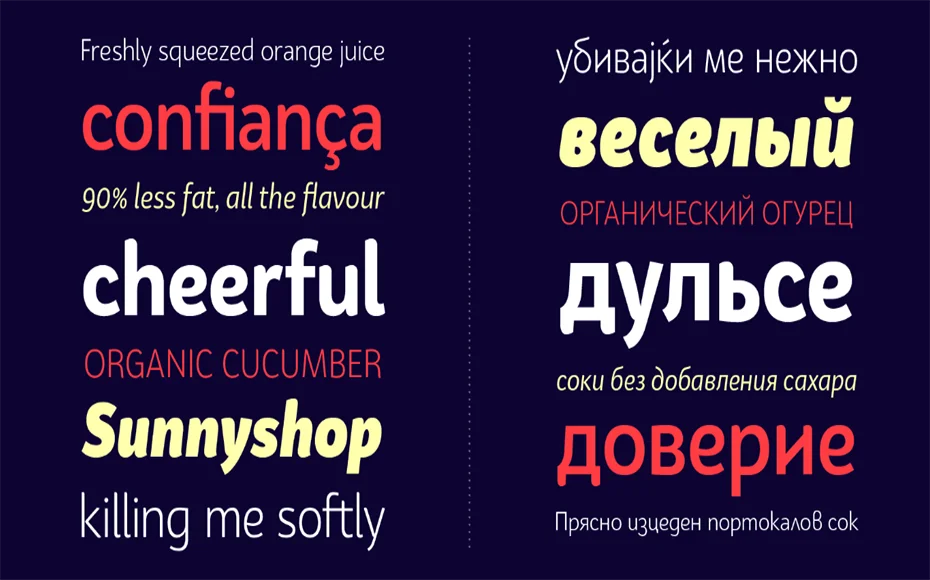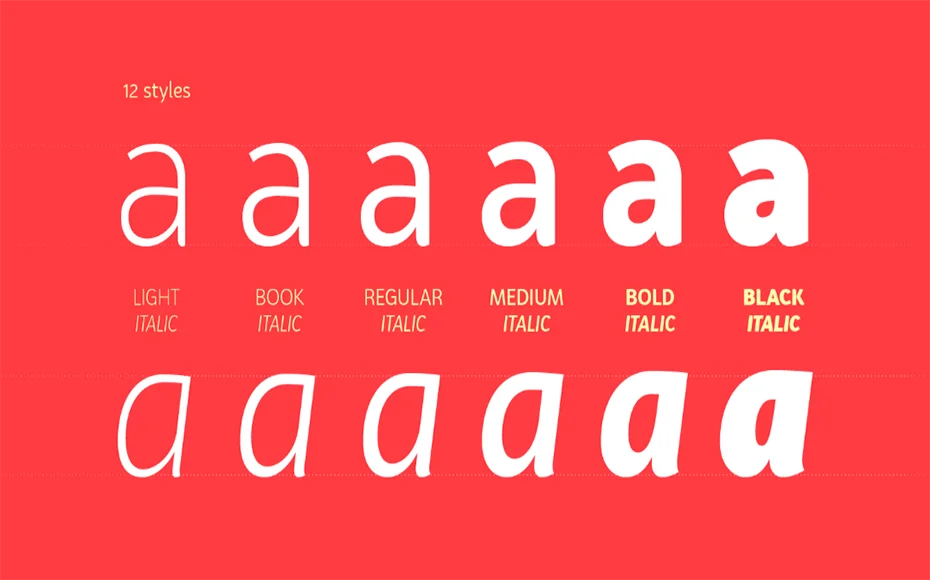
Bw Surco Font is a fresh and optimistic humanistic sans serif with a hand stroke signal. It is an eye-catcher and an excellent choice for branding, logos, signage, and posters. Give it a try.
A Spanish font designer Alberto Romanos is the primary designer of this font family. And it was shared by Branding with Type on 1 June 2016.
Its soft, round shapes, balanced x-height, and contrast between the Romans and the real slant, all build towards a very practical font family with a friendly and quick personality.
So, you have lots of options to create a unique and interesting look for your next project.
Use it for posters, T-shirts, packaging, card texture, banners ads, and posters advertising. As well as titling & branding, packaging, watermarks, website content, fashion magazine, printing objects and so on.
It comes in 12 styles supporting all European Latin and Cyrillic languages, with stylistic variations for Bulgarian, Serbian and Macedonian.
all Western Latin languages + European Cyrillic, with stylistic variations for Bulgarian, Serbian and Macedonian